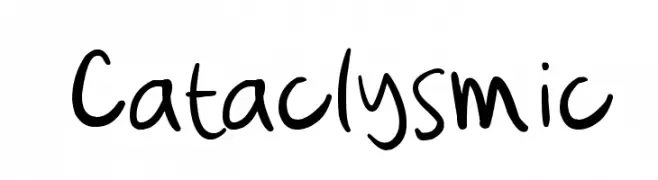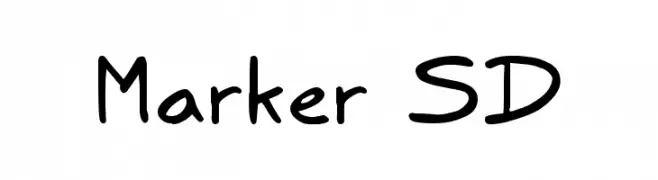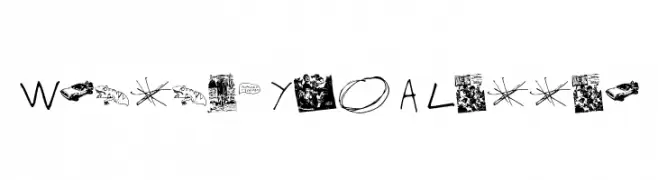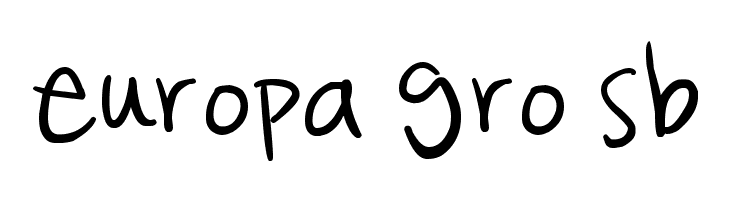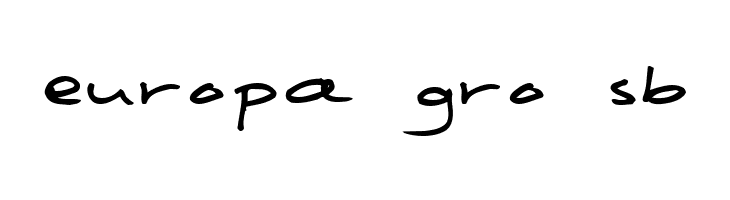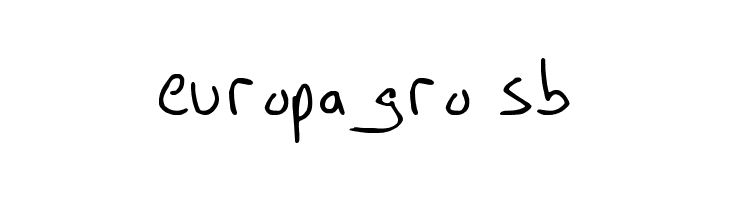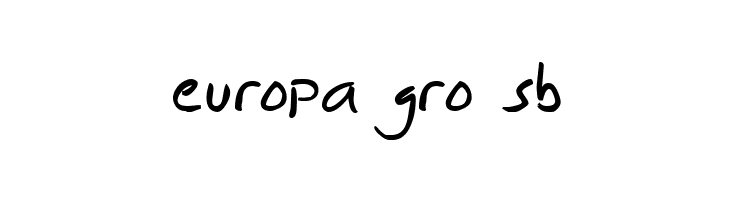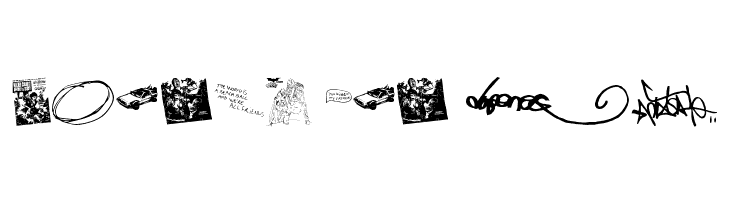
A playful, bold handwritten font with rounded, consistent strokes.
A playful, casual handwritten font with smooth, flowing lines and a friendly vibe.
A playful, casual handwritten font with fluid strokes and a personal touch.
A playful, casual handwritten font with uneven strokes and an organic flow.
A playful, handwritten marker-style font with bold, rounded characters.